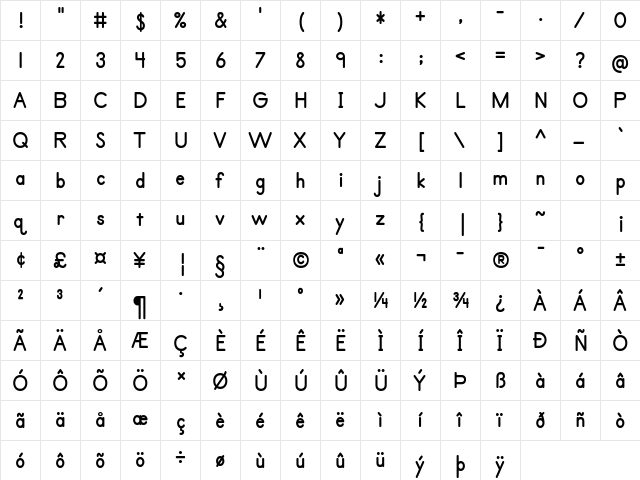
Primer Print Bold
Design Context for Primer Typeface
Primer offers clean, dependable letterforms without strong stylistic allegiance, making it a practical choice for designers who need flexibility. Its bold stroke weight gives it real presence on the page.